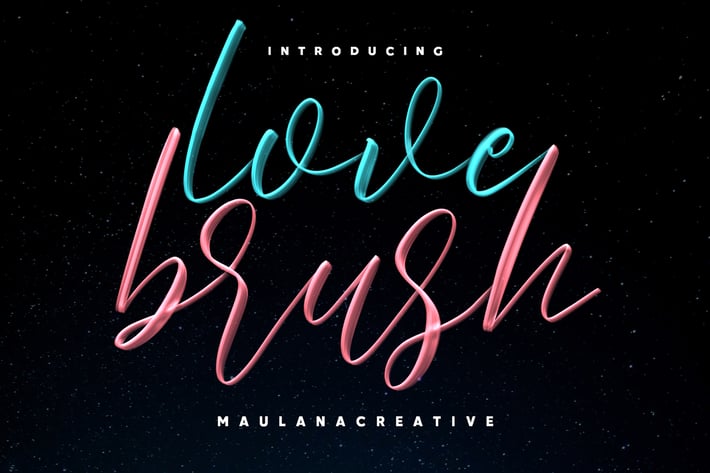
Love Brush SVG Font - Free Sans
Give your designs an authentic brush handcrafted feel. "Love Brush SVG Font - Free Sans" is perfectly suited to signature, stationery, logo, typography quotes, magazine or book cover, website header, flyer, clothing, branding, packaging design and more.